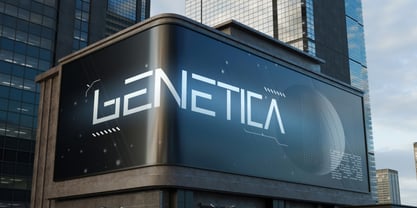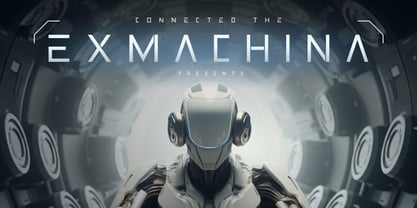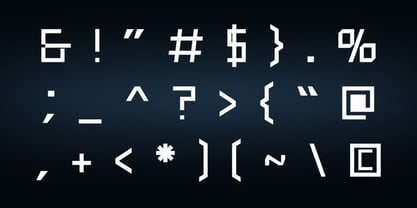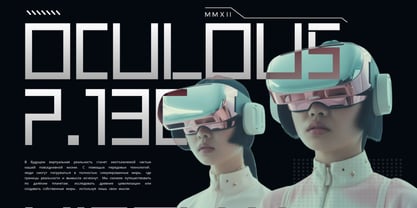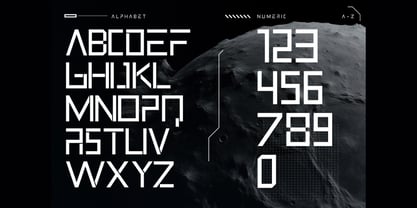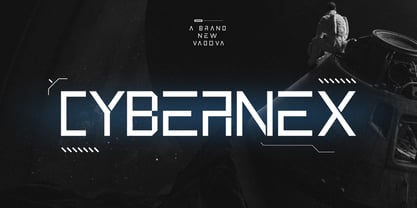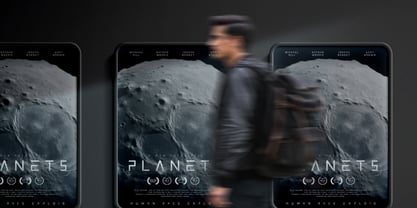
Cybernex
Cybernex is a futuristic display font built with sharp geometric forms and a clean all-caps structure inspired by modern technology, space exploration, and sci-fi aesthetics. Its bold, precise letterforms convey a strong digital and forward-thinking character, making the typeface stand out in high-impact visual compositions. The consistent proportions and angular cuts give Cybernex a modern, professional, and high-tech appearance. This font is designed to deliver a powerful futuristic identity across digital and print media. Suitable For Technology branding, futuristic logos, sci-fi games, space-themed projects, esports branding, automotive visuals, tech startups, crypto and blockchain branding, UI/UX interfaces, film or game titles, posters, event promotions, and modern digital design projects that require a bold futuristic and technological feel.